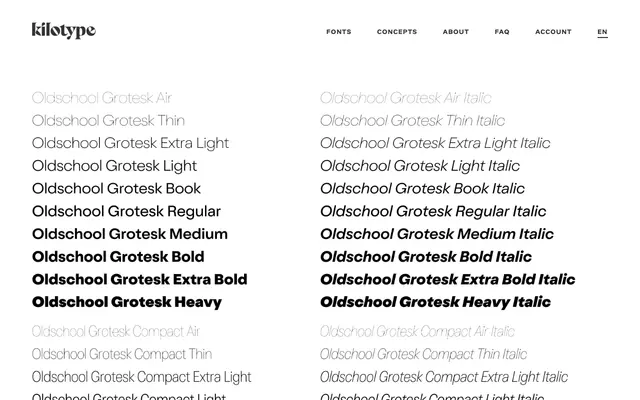
Oldschool Grotesk
A large grotesque family from Kilotype spanning four widths and ten weights, rooted in the nineteenth-century European grotesque tradition.
The family runs from Air to Heavy across standard, Compact, Condensed and Compressed widths, each with matching italics, giving 80 styles in total. The name signals a deliberate debt to the old-style grotesques that preceded the refined Swiss sanses, preserving some of their rawer proportions and texture. That breadth makes it practical across editorial, identity and poster work wherever width contrast is useful.
The name and visual character point squarely to the nineteenth-century grotesque tradition, with the breadth of weights and widths typical of contemporary revivals in that lineage.